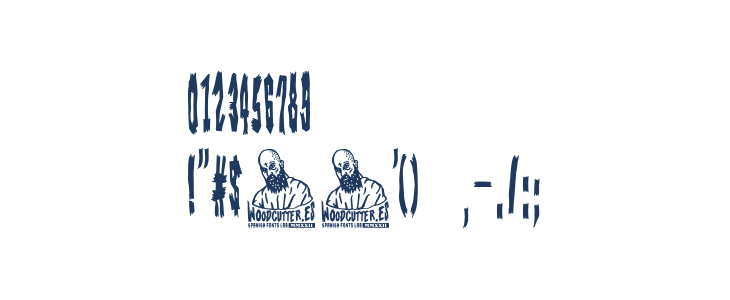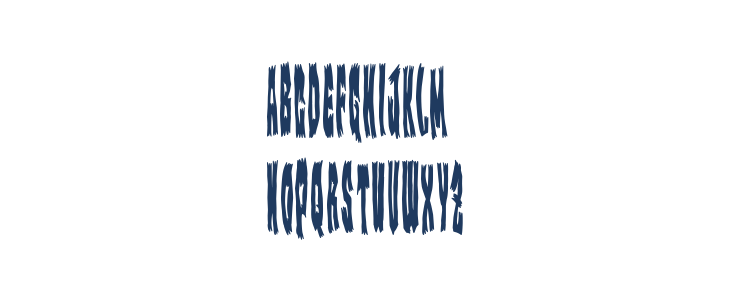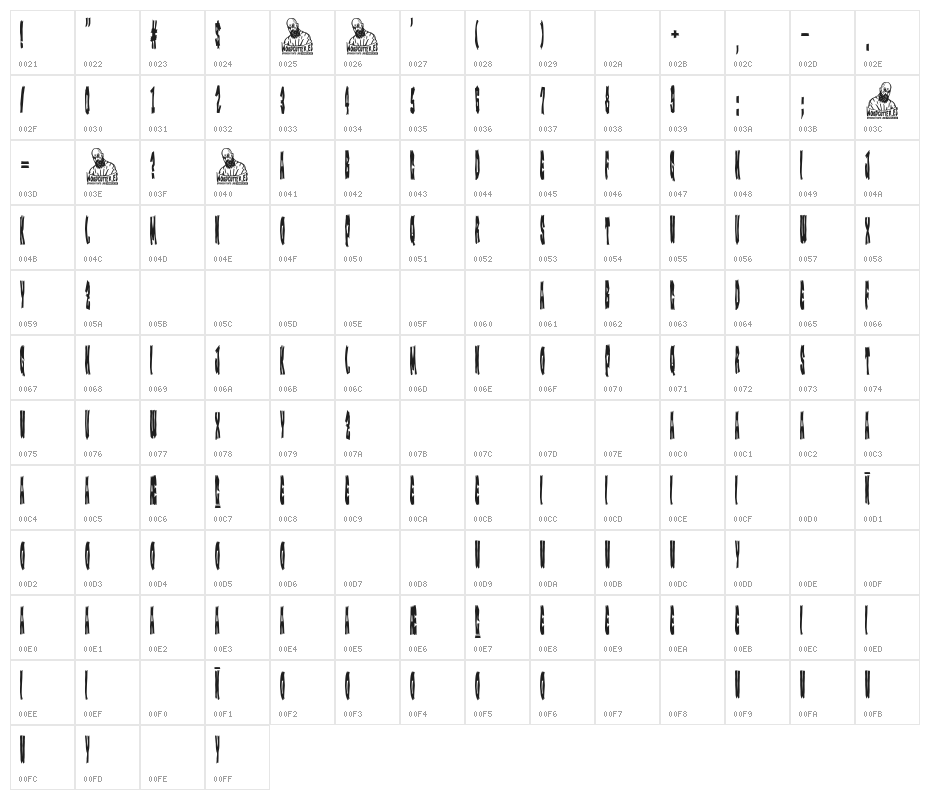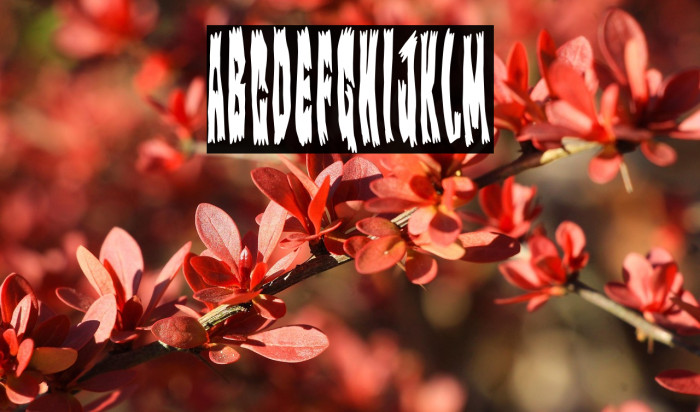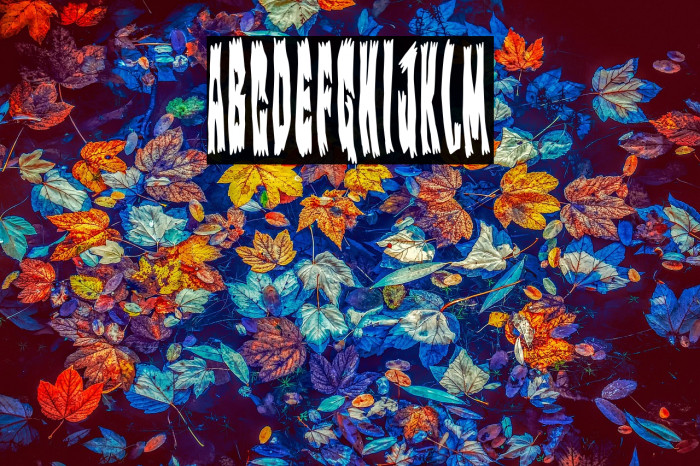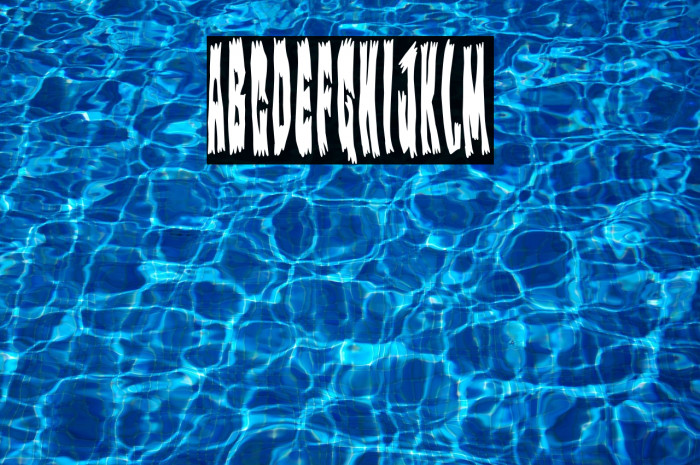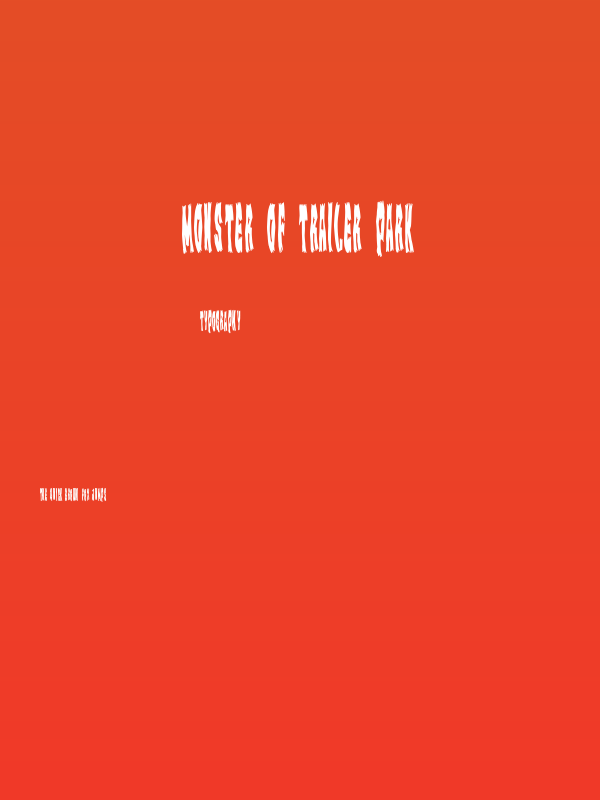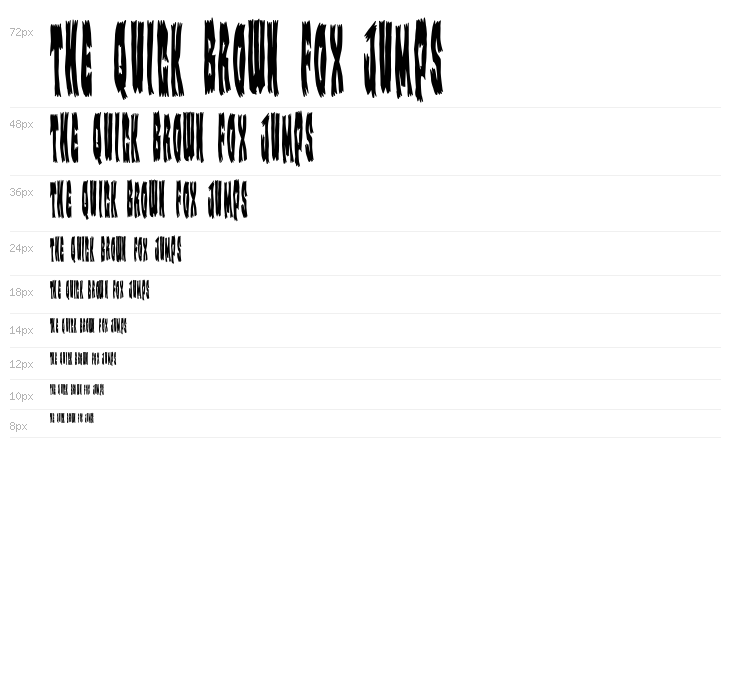
Monster of Trailer Park Font
Monster of Trailer Park Description
| Overall Style | Decorative, Horror, Grunge |
| Use Case | Headlines, Posters, Logos, Event Promotions |
| Proposed Projects | Horror movie posters, Halloween event flyers, band logos, comic book titles, themed party invitations. |